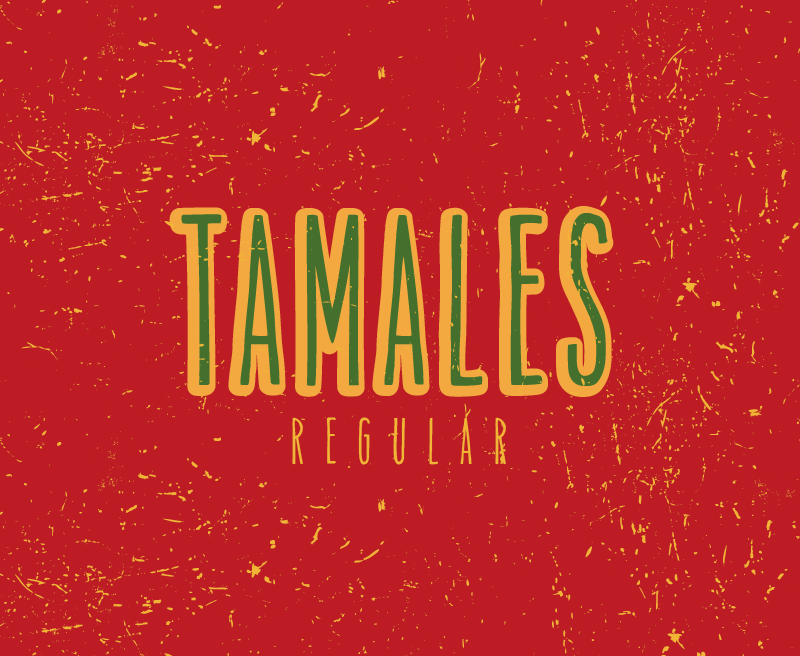
Font name: | Tamales |
Author: | HENRIavecunK |
Note by HENRIavecunK | |
A organic and nice narrow typeface, suitable for menus, logos, pricetags and the like. Donations $5 or more give you a basic commercial license for 1-5 users, and if the font is made into a PRO version later on then you get a copy of that, free of extra charge. For other uses please contact me. Thanks, HENRIavecunK |